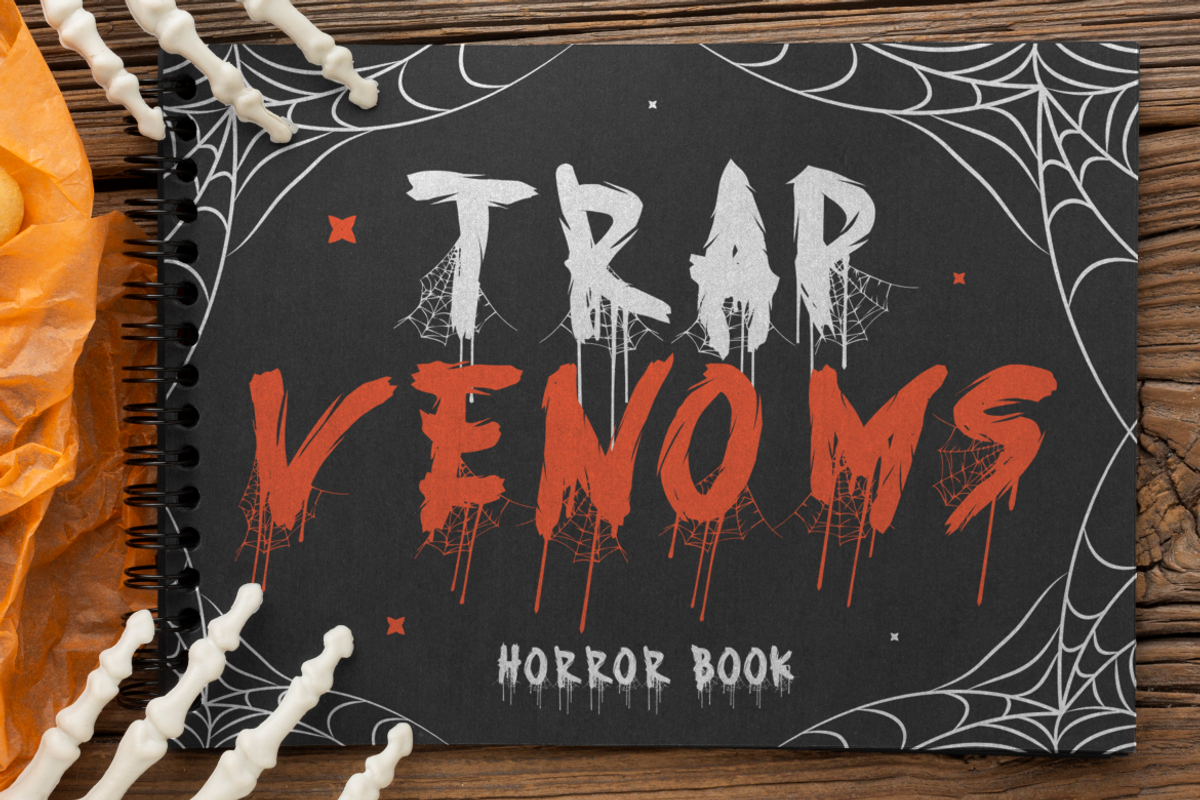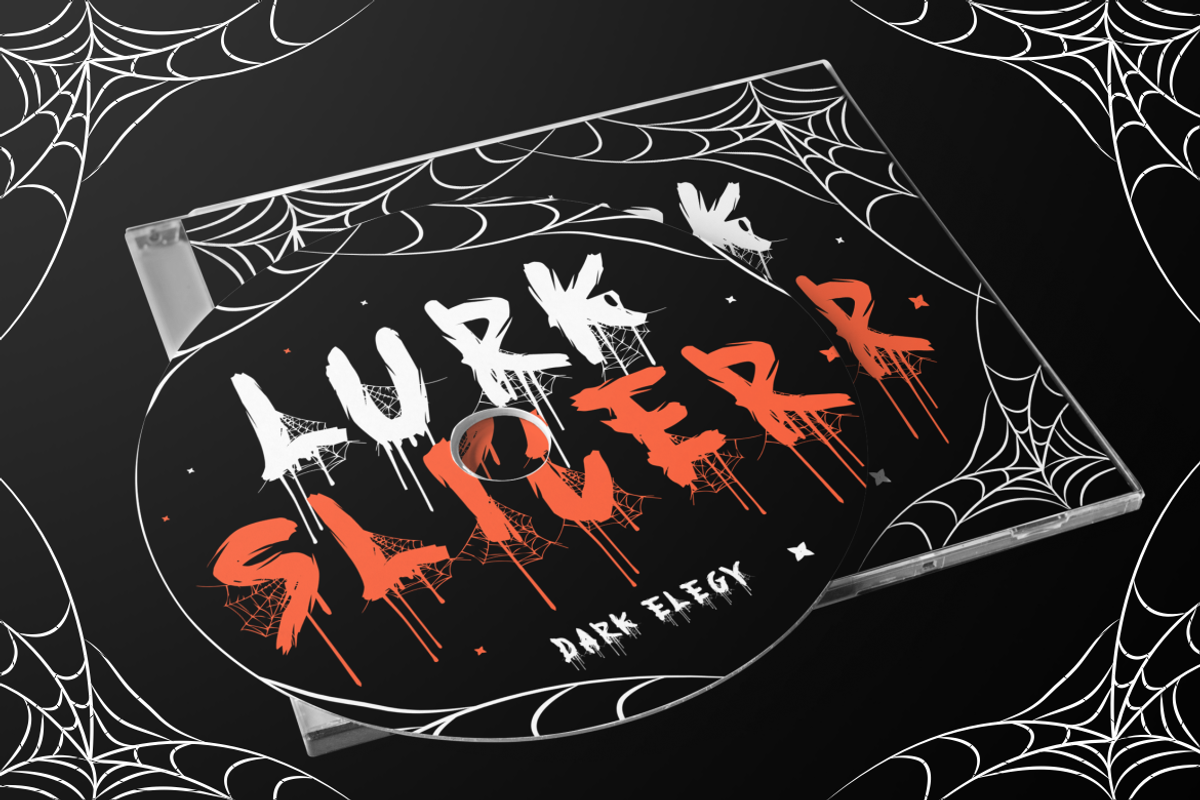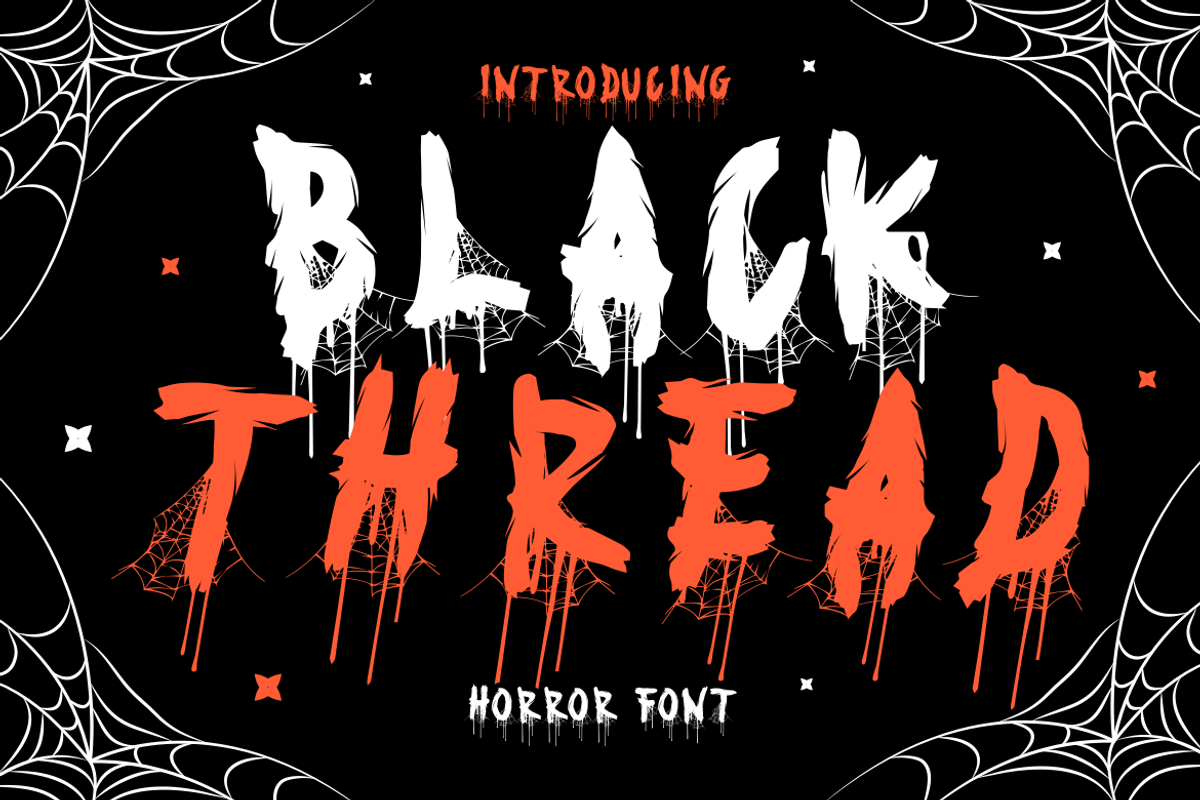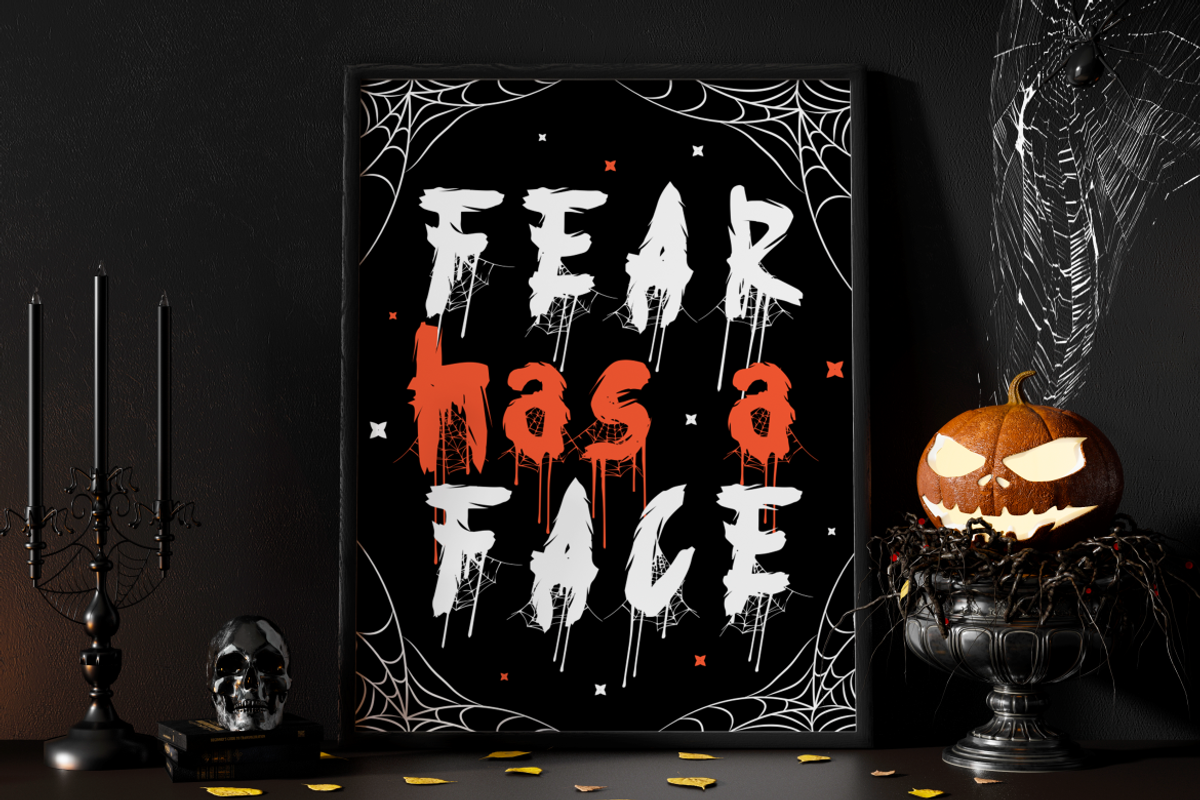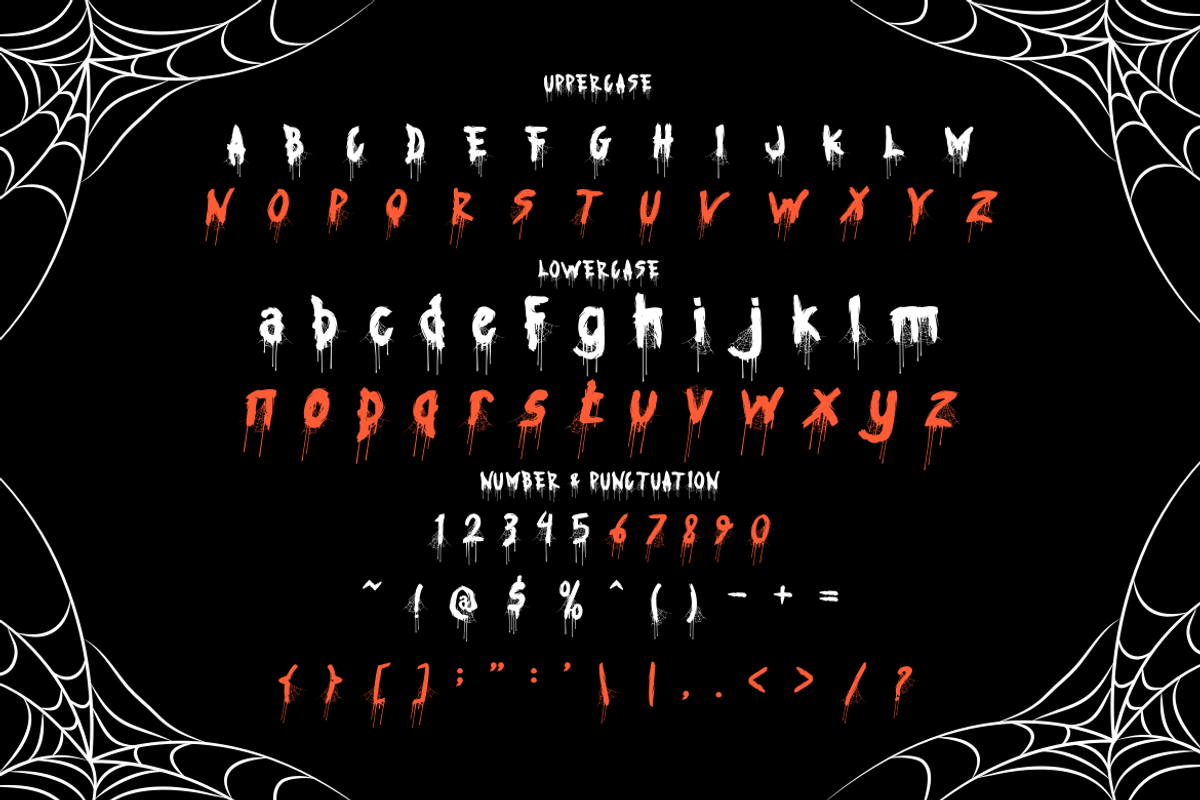
Black Thread Horror Font
Unleash your darkest ideas with Black Thread – a horror font drenched in fear and dripping with atmosphere. This typeface is forged with unsettling brush strokes, jagged textures, and web like decay that bleeds off every character. The sharp edges simulate torn fabric and coagulated blood, adding sinister drama to every letterform. Alternating black and red tones evoke the essence of horror cinema, while the elongated drips bring a haunted, melting effect. Perfectly aligned with Halloween aesthetics, this font transforms words into visual screams. It comes with uppercase, lowercase, punctuation, and symbols that maintain stylistic consistency and thematic tension across your entire design.
Black Thread is an excellent choice for any designer looking to make a bold, spine chilling impression. Use it for horror movie posters, haunted invitations, thriller book covers, or Halloween merchandise. Whether it’s a creepy logo, eerie CD artwork, or an ominous quote on a black background, this font delivers immersive fear without compromise. The layout thrives in high contrast compositions and layered visuals, amplifying its terror inducing presence. Make your horror themed project unforgettable with a font that haunts at first glance.